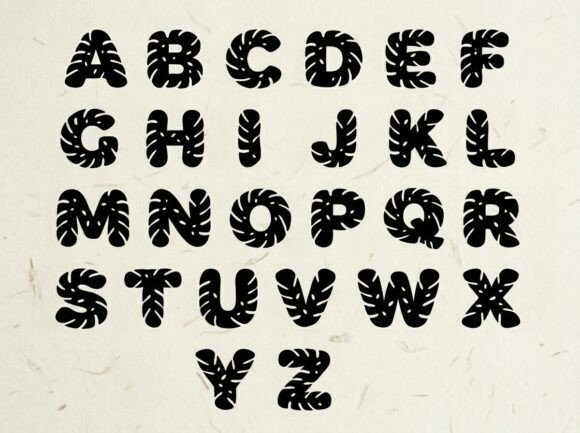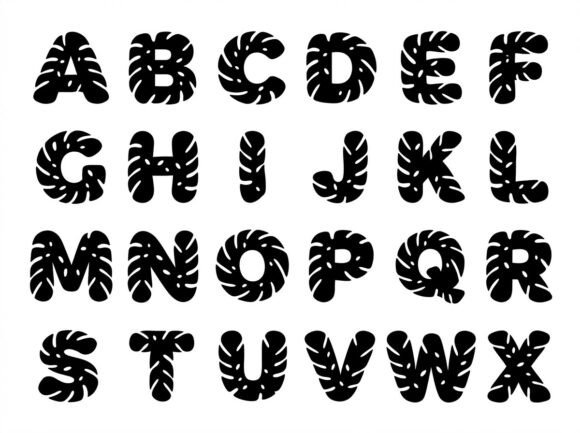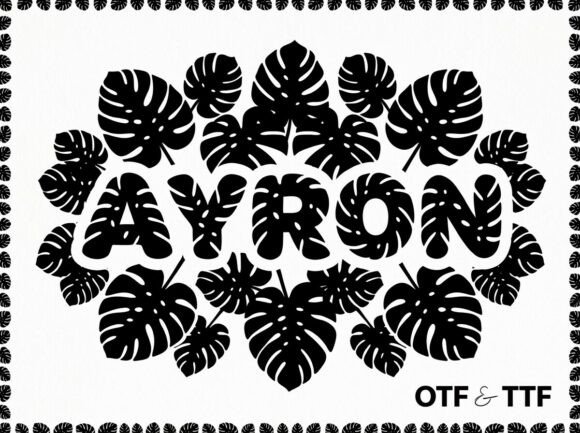
Ayron Font: The Ultimate Avant-Garde Display Font for Creative Rebels
Are you tired of using the same old fonts that blend in with the crowd? Look no further than Ayron Font, an avant-garde decorative display font designed to make a statement. With its commanding visual personality and unique artistic flourishes, this typeface is perfect for creators who refuse to blend in.
Unleash Your Creativity with Ayron Font
Ayron Font is more than just a font – it’s a work of art. Engineered to be the focal point of any composition, this font is characterized by its strong, artistic soul and high-end, polished finish. Whether you’re working on luxury packaging, experimental editorial layouts, or high-impact headlines, Ayron Font is the perfect choice.
What Makes Ayron Font So Special?
Ayron Font is an all-caps (uppercase only) display typeface, which means that every letter has been meticulously crafted to stand on its own as a work of art. By omitting lowercase characters, the designer has focused entirely on the intricate craftsmanship of every individual letter, ensuring that each one is a masterpiece.
This attention to detail is evident in the font’s unique artistic flourishes, which add a touch of elegance and sophistication to any design. Whether you’re creating a signature logo, conceptual packaging, or a poster, Ayron Font is sure to make your design stand out from the crowd.
Ideal for:
- High-impact headlines that demand attention
- Signature logos and branding that require a unique touch
- Conceptual packaging that needs to stand out on store shelves
- Poster and social media design that requires a bold, eye-catching font
Tips for Using Ayron Font
To get the most out of Ayron Font, here are a few tips:
- Use it sparingly: Ayron Font is a bold, attention-grabbing font, so use it sparingly to avoid overwhelming your design.
- Experiment with different colors: Ayron Font looks great in a variety of colors, so don’t be afraid to experiment and find the perfect hue for your design.
- Pair it with a neutral font: To create visual interest, pair Ayron Font with a neutral font, such as a sans-serif or serif font.
Ayron Font is the ultimate avant-garde display font for creative rebels. With its commanding visual personality, unique artistic flourishes, and high-end, polished finish, this font is perfect for designers and crafters who refuse to blend in. Whether you’re working on luxury packaging, experimental editorial layouts, or high-impact headlines, Ayron Font is sure to make your design stand out from the crowd.